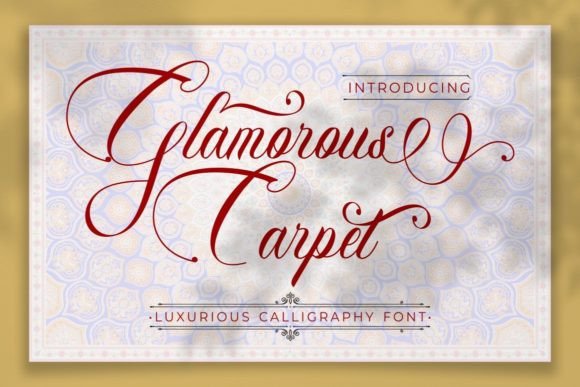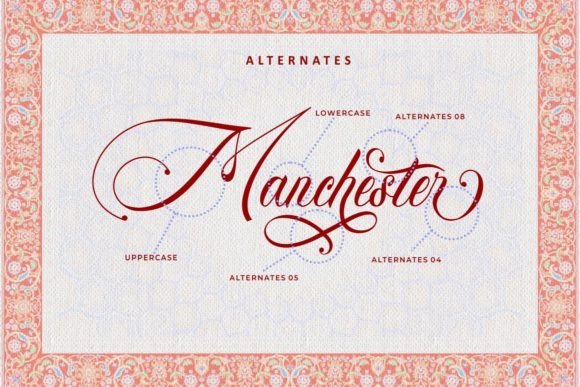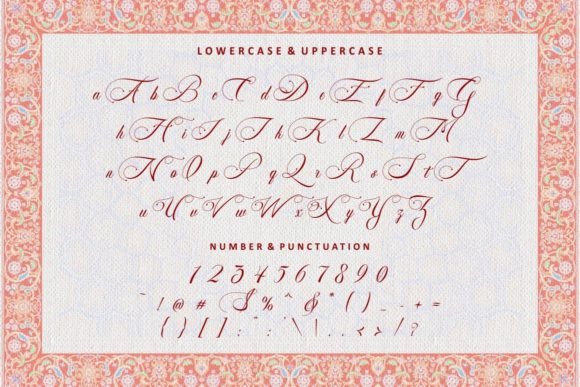
About Glamorous Carpet Font
“Glamorous Carpet” is a luxurious calligraphy font that has been meticulously crafted to exude opulence and elegance. This font is designed to become a cherished favorite for your creative projects. With its contemporary and fresh style, “Glamorous Carpet” is a perfect choice for enhancing any design you wish to create.
The allure of “Glamorous Carpet” lies in its ability to convey a sense of luxury and sophistication. Each character is expertly designed to exude a feeling of grandeur and elegance, making it ideal for projects where you want to make a bold and lasting statement. Imagine using “Glamorous Carpet” for a high-end fashion campaign or luxury brand’s promotional materials, where the font itself becomes a symbol of opulence and style.
For branding, advertisements, product packaging, magazine covers, and various design applications, “Glamorous Carpet” brings a contemporary and fresh elegance to your content. It has a versatile quality that can elevate the visual appeal of your projects, no matter the context or theme.
Furthermore, the font’s PUA encoding means that you can easily access its extensive range of glyphs and ligatures, providing you with enhanced creative possibilities. This feature empowers you to create unique and personalized designs with ease.
In summary, “Glamorous Carpet” is more than just a font; it’s a design asset that brings luxury and contemporary elegance to your creative work. Its masterfully crafted calligraphy style and versatility make it suitable for a variety of applications, and its ability to convey opulence and sophistication sets it apart. With “Glamorous Carpet” in your font collection, your design projects will exude a sense of timeless grandeur and style that leaves a lasting impression.